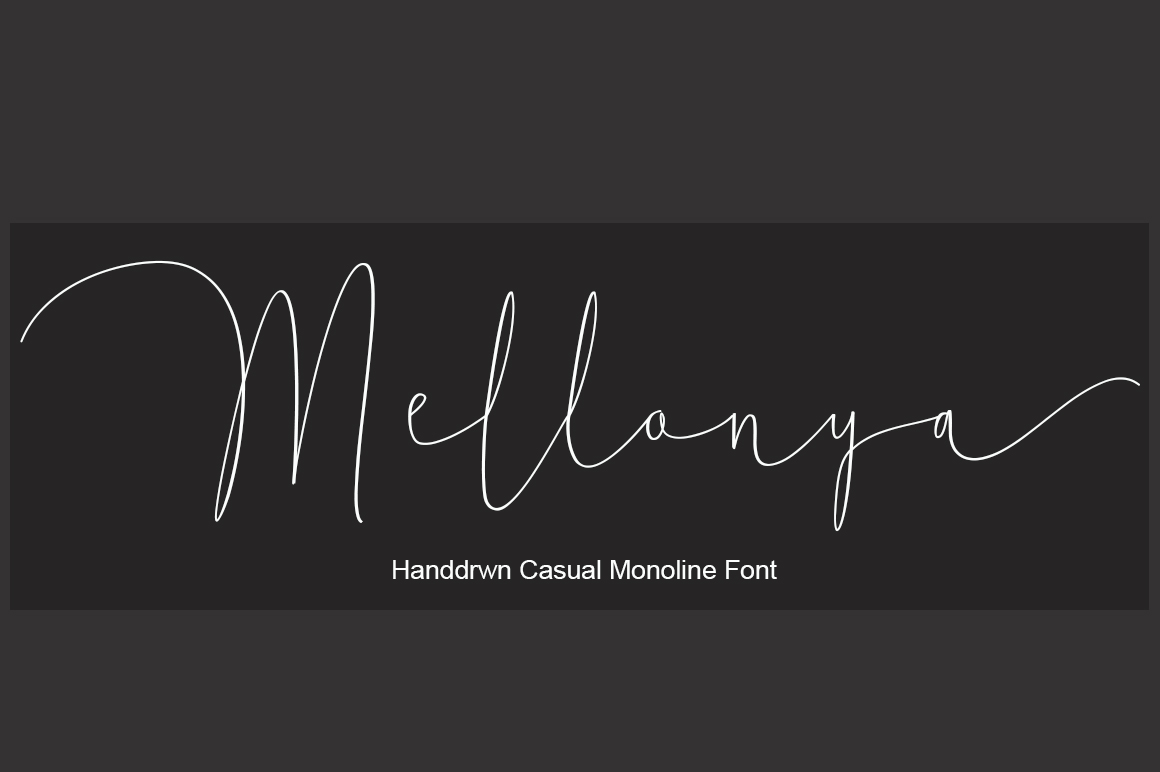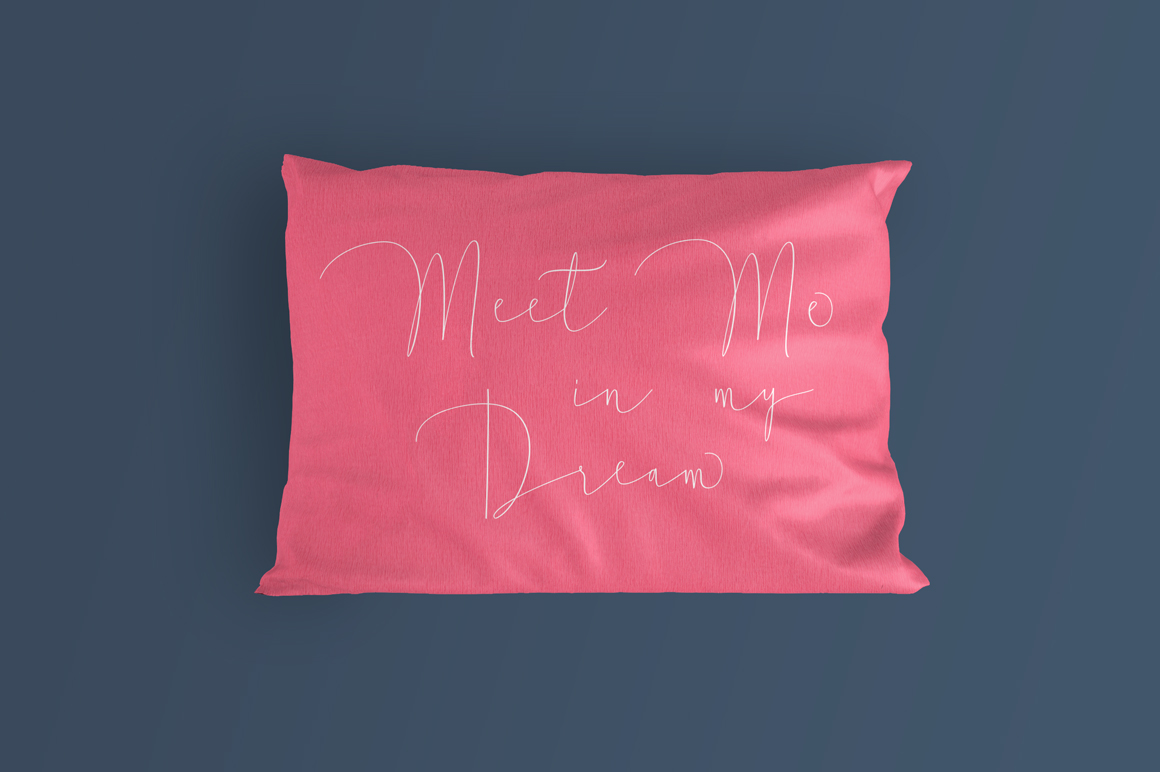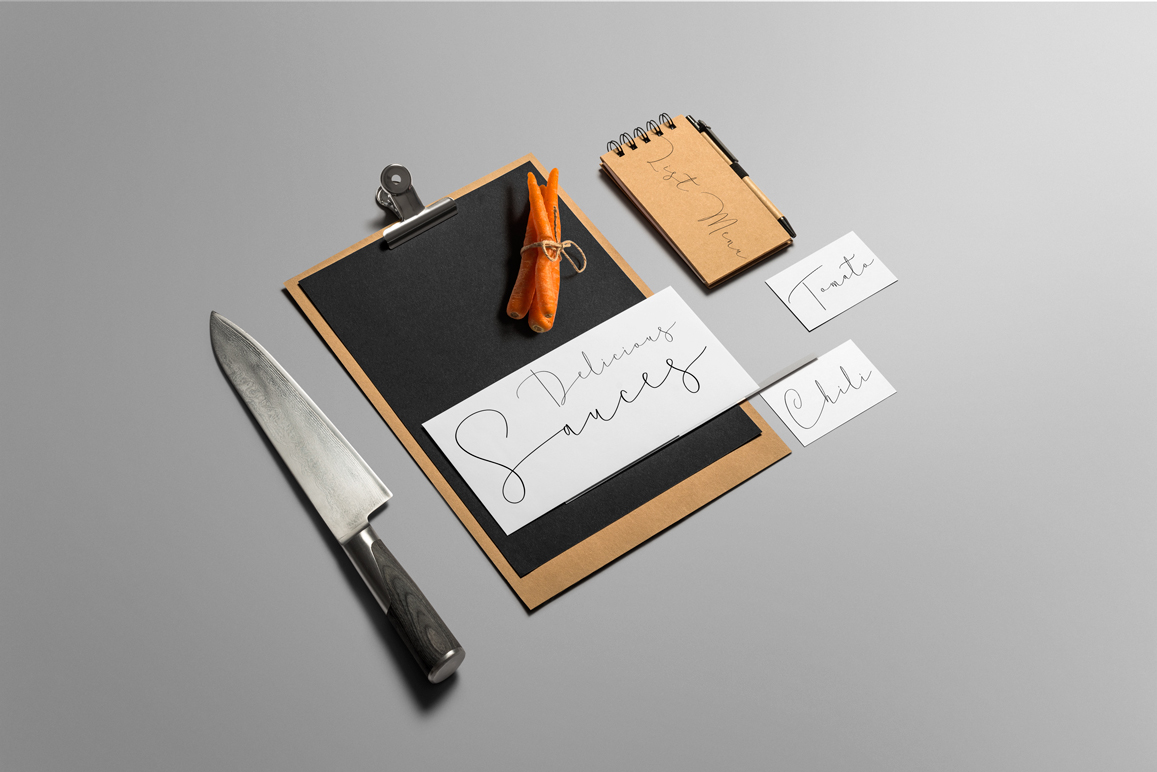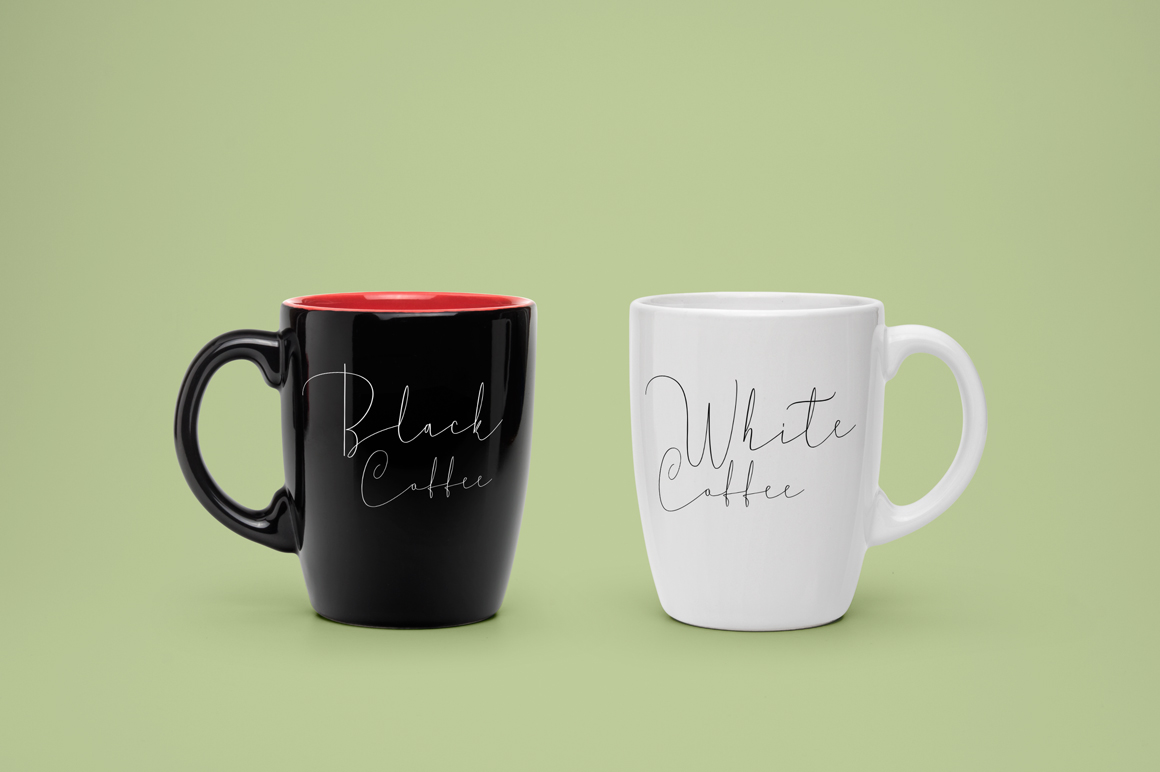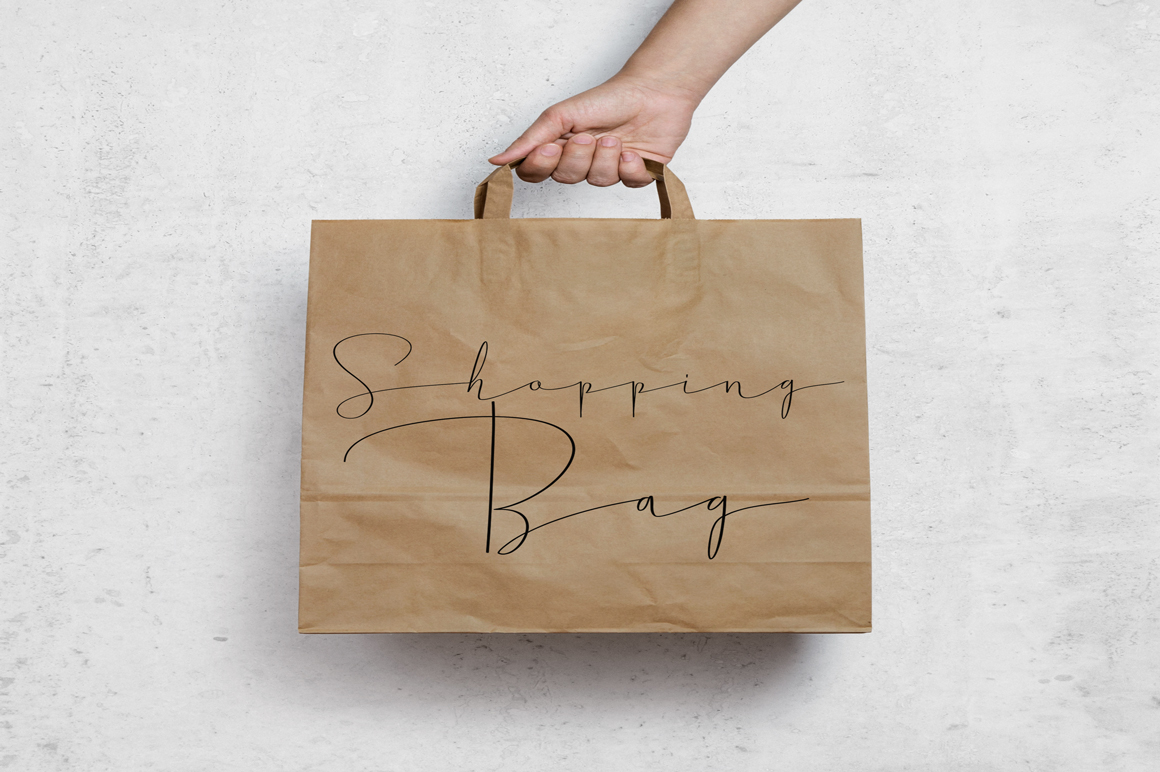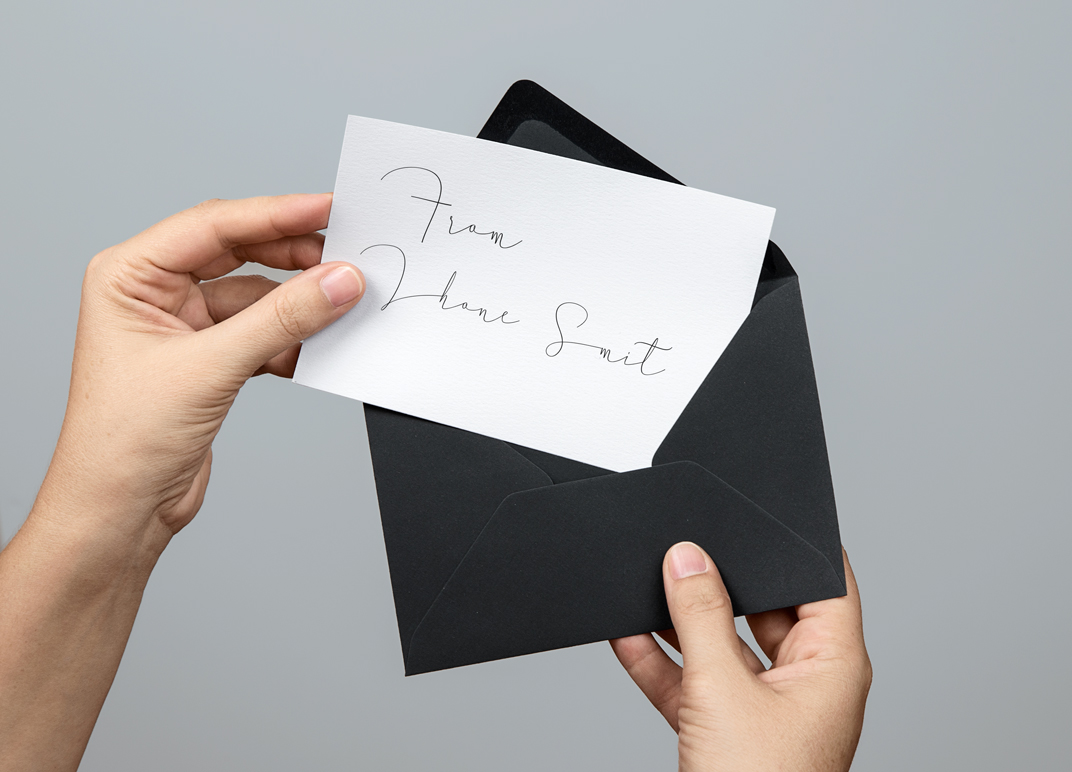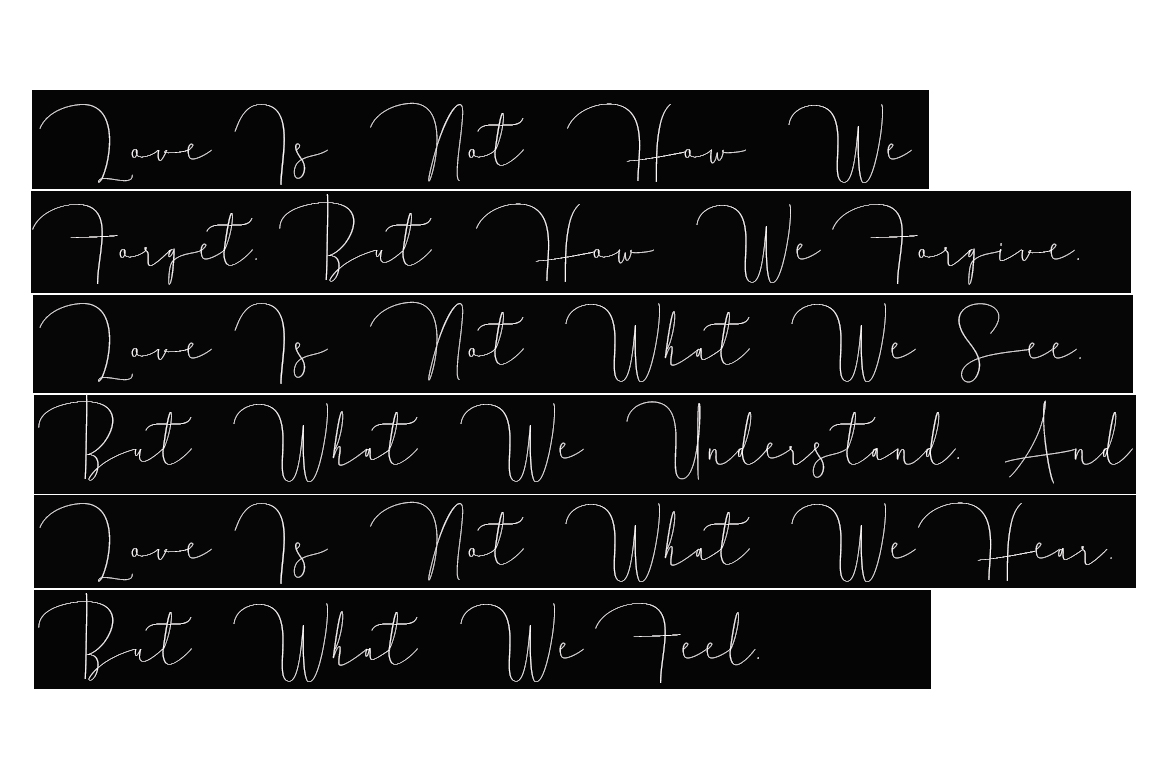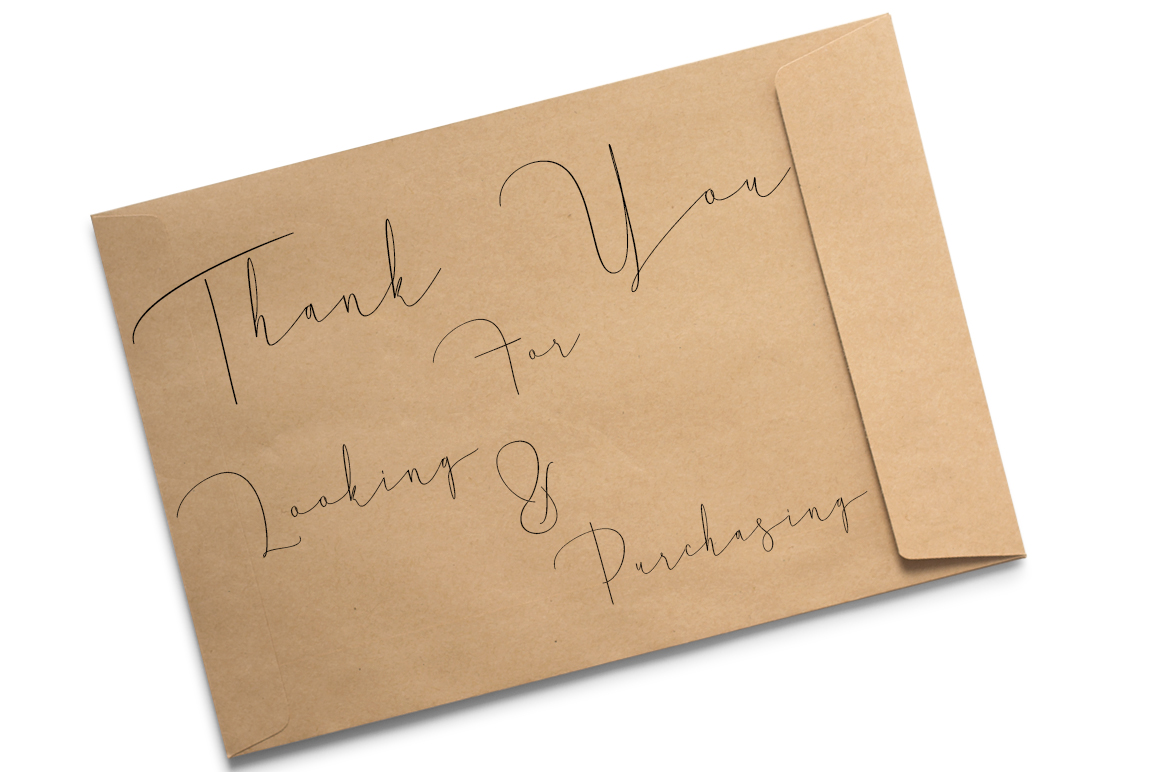
Mellonya Font
About Mellonya Font
Mellonya is a modern calligraphy-style font. It was designed by digitizing handwriting and has a modern, unique form of calligraphy.
It has a very natural written style and can be used in a large range of projects.